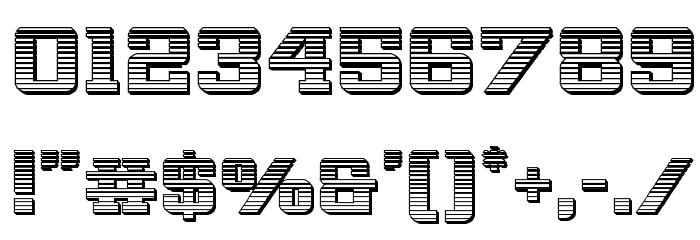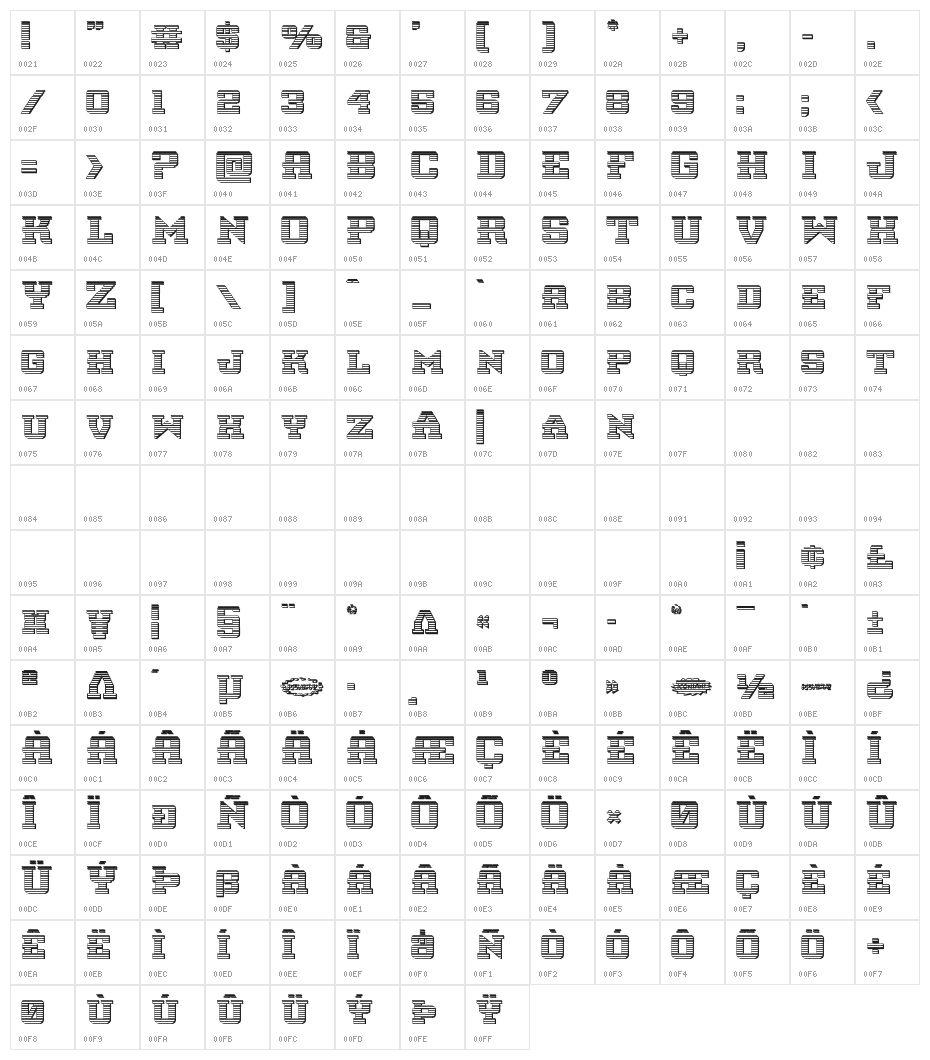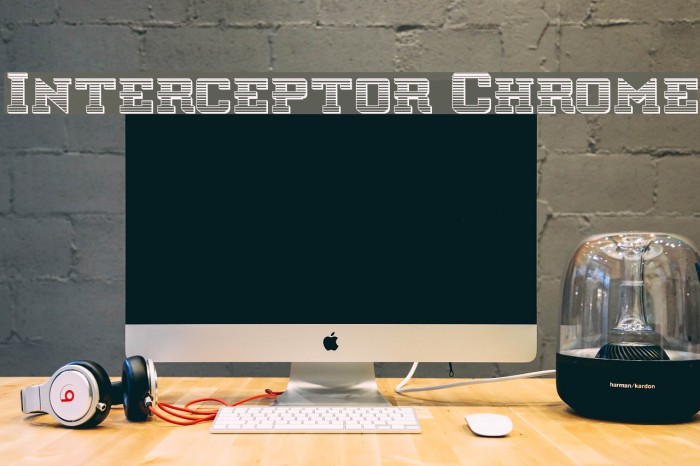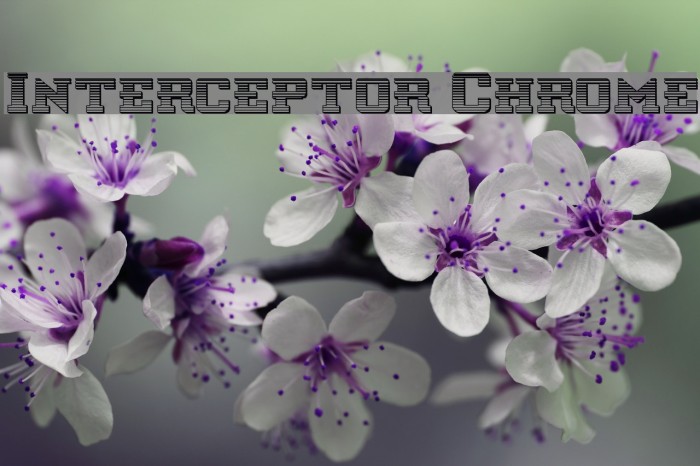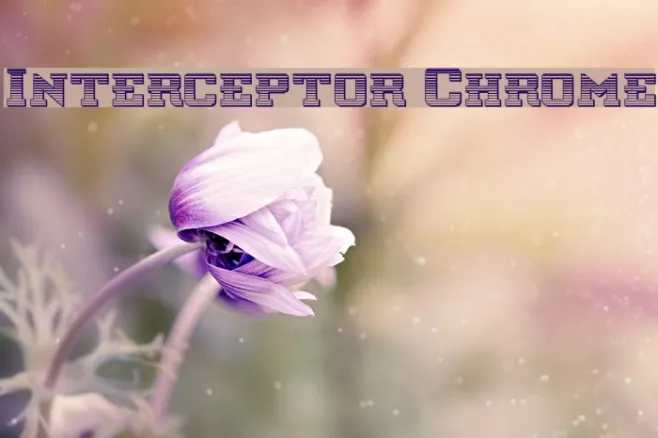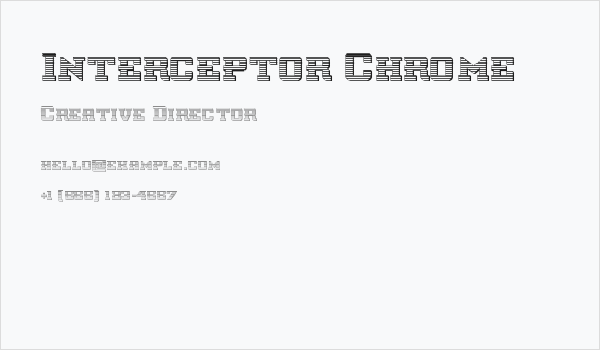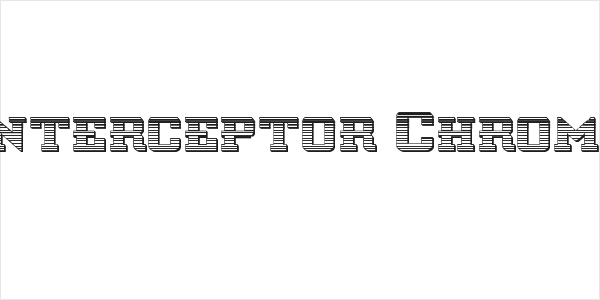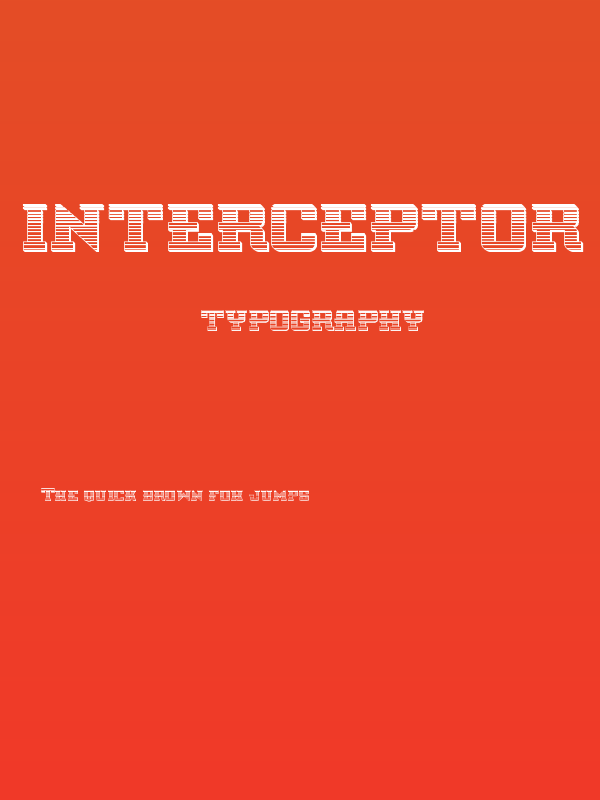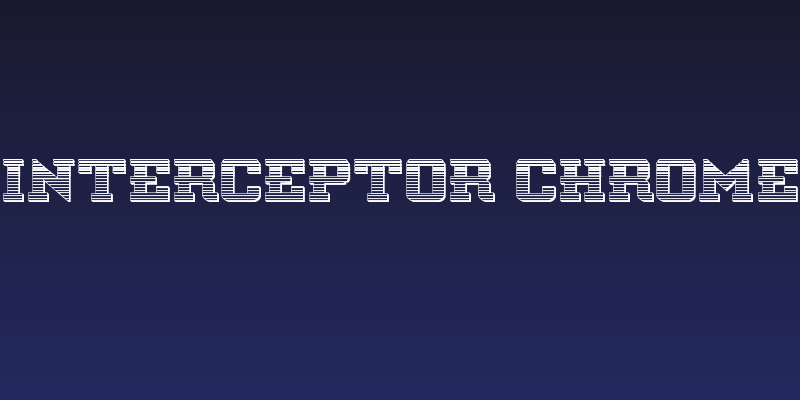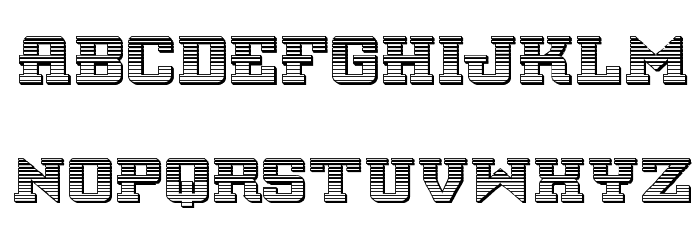
Interceptor Chrome Font
Interceptor Chrome Description
This font features a bold, decorative style with a three-dimensional effect created by horizontal lines within each character. The uppercase letters are structured with strong geometric shapes, giving them a robust and industrial appearance. The numbers and special characters maintain this bold, striped pattern, ensuring consistency across all glyphs. The font's unique design makes it stand out, ideal for projects that require a striking visual impact. Its distinct style is reminiscent of vintage signage or retro-futuristic themes, making it suitable for creative and eye-catching designs.
| Overall Style | Retro-Futuristic, Industrial |
| Proposed Projects | Ideal for posters, logos, headlines, and any design needing a bold, eye-catching typeface. |